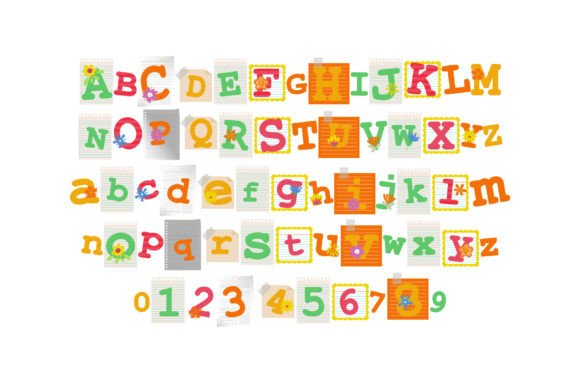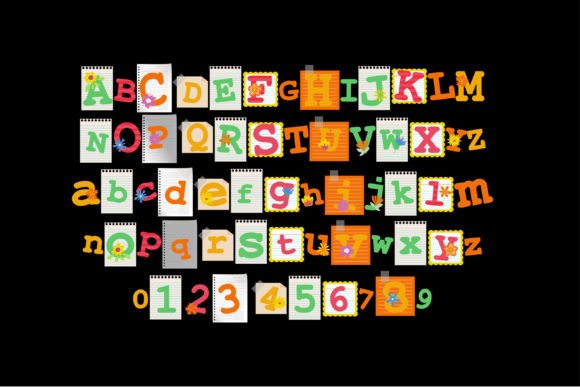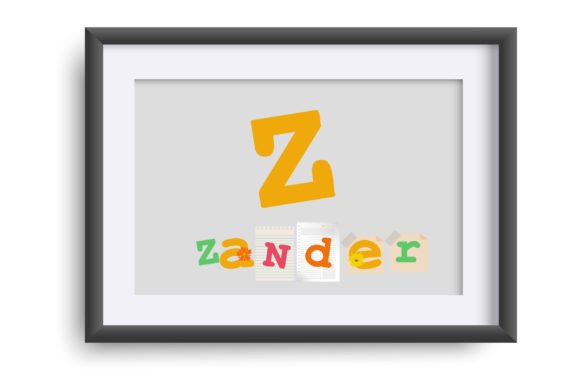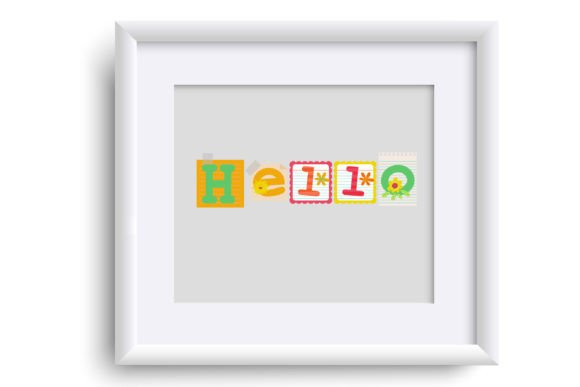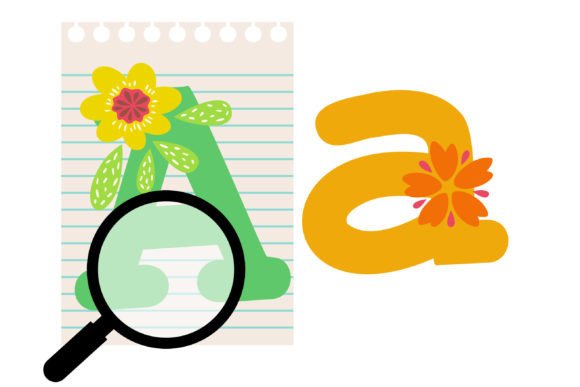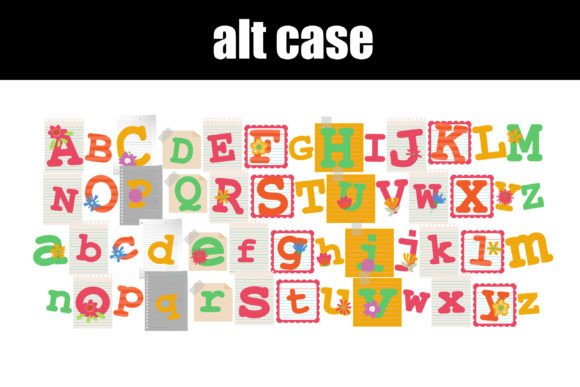
Introduction to Noted Rainbow Font
Infuse your designs with a burst of vibrant personality using Noted Rainbow, a playful and imaginative font that packs each letter with a kaleidoscope of hues.
With its unique style and bold colors, this font is guaranteed to add a touch of whimsy and creativity to your projects This font is PUA encoded which means you can access all glyphs and swashes effortlessly.
Key Features of Noted Rainbow Font